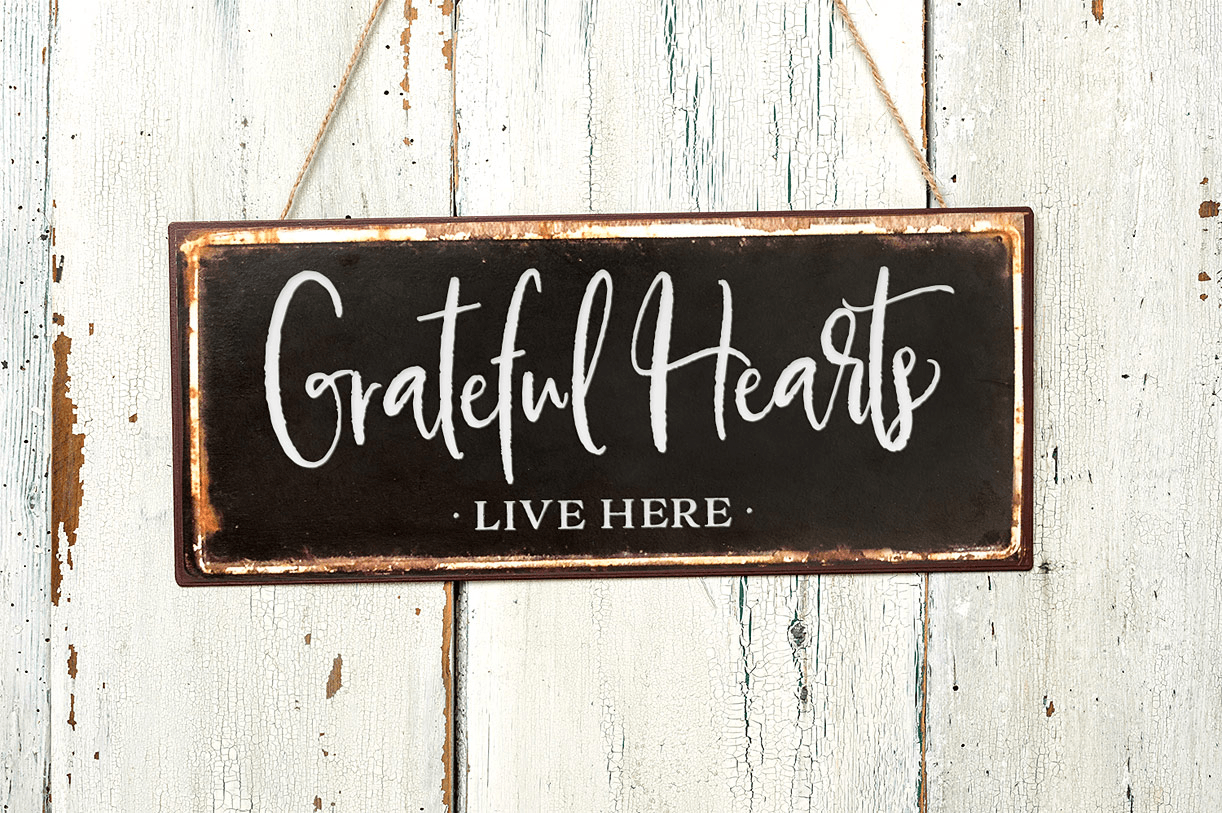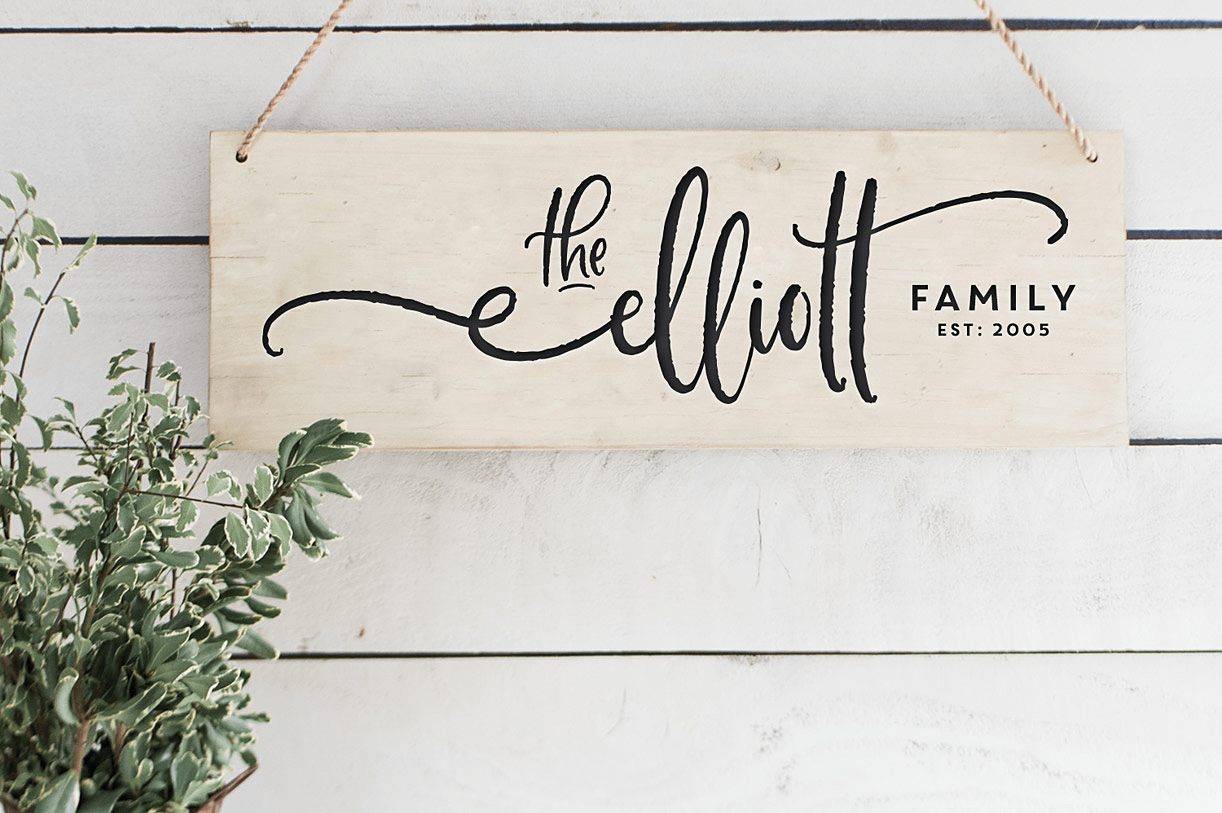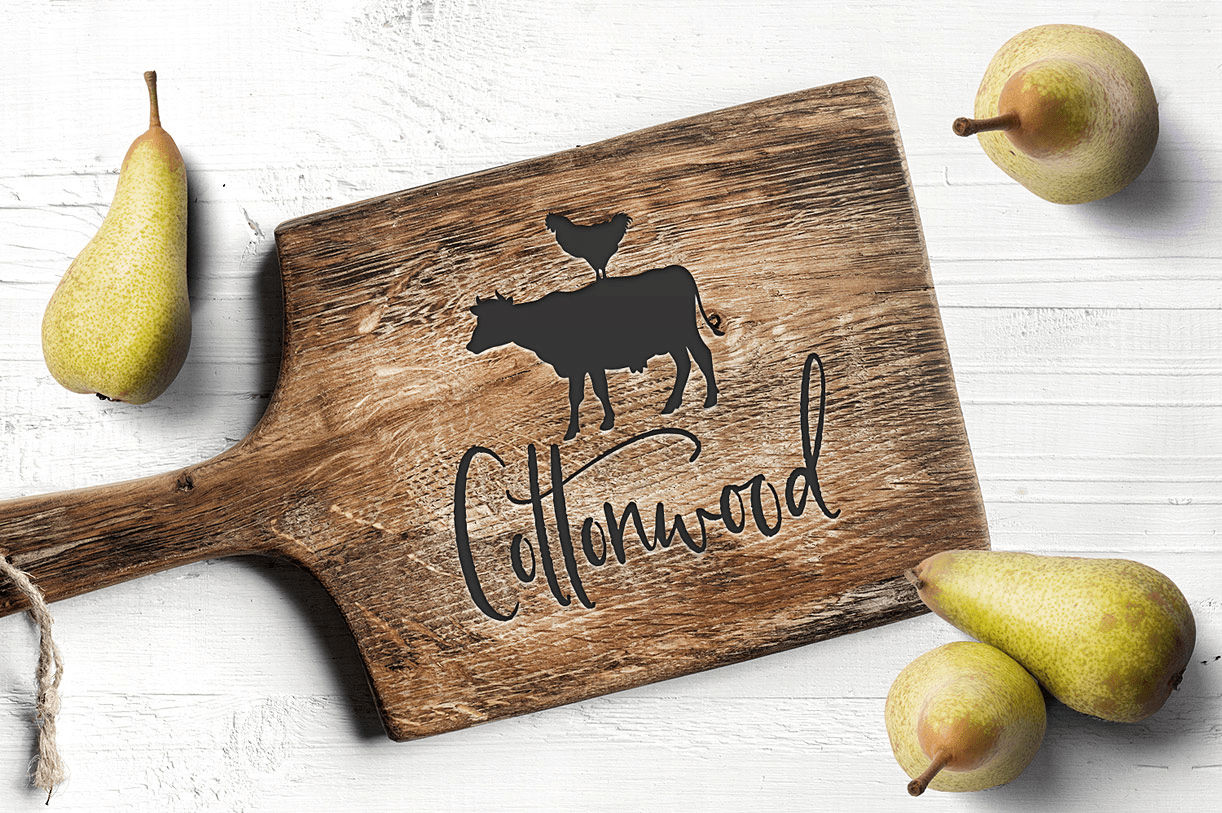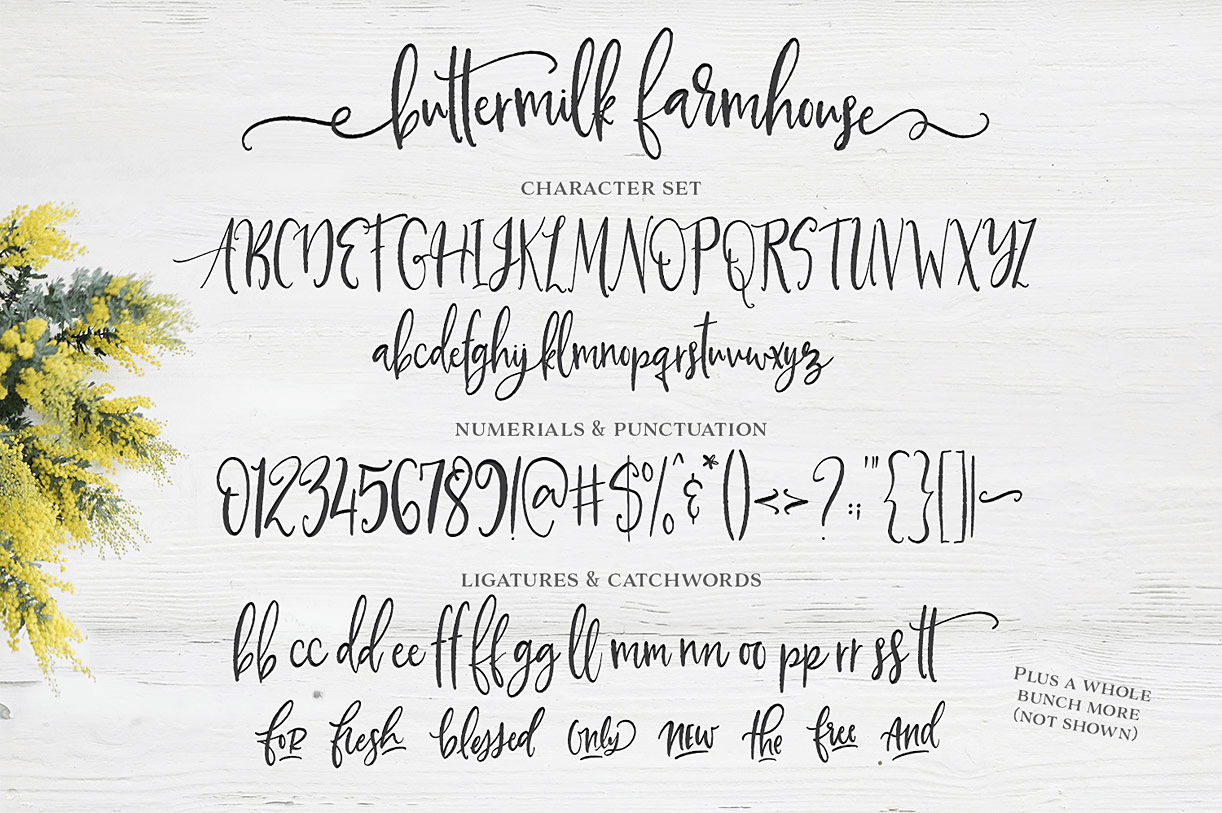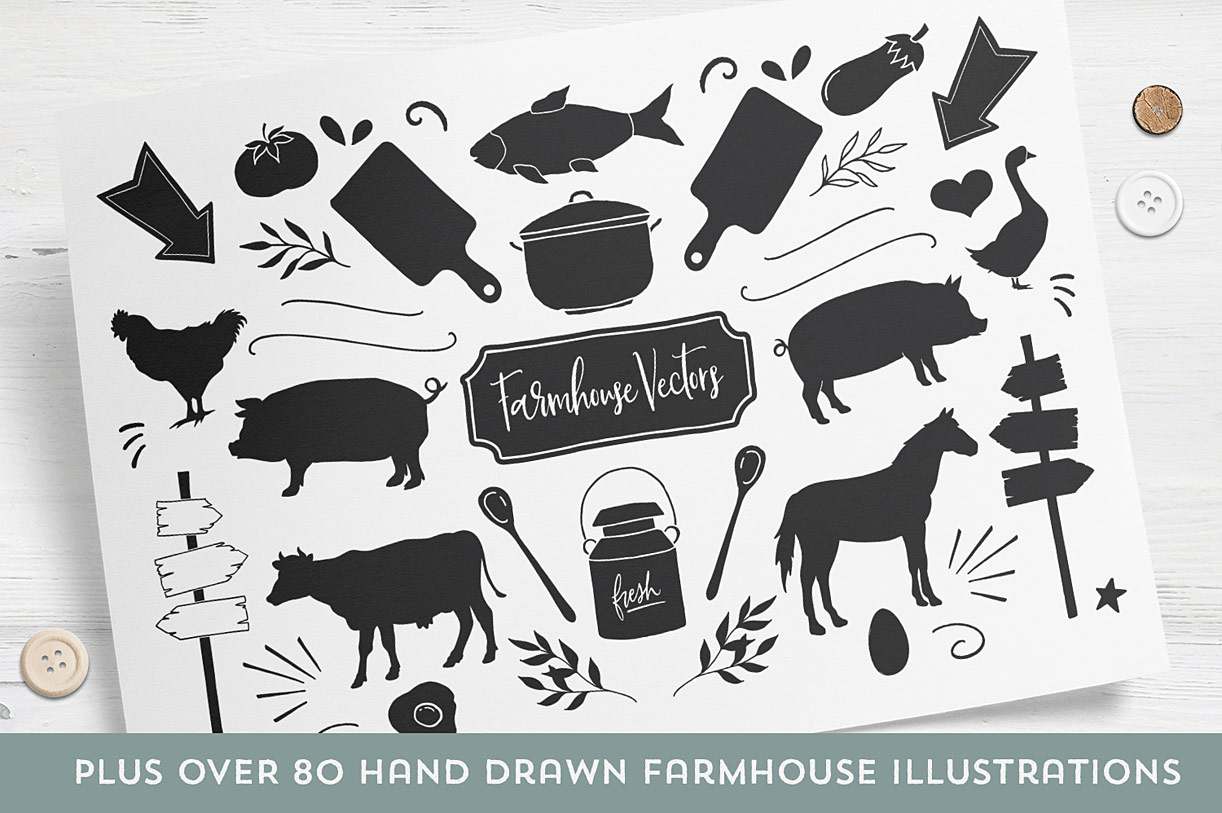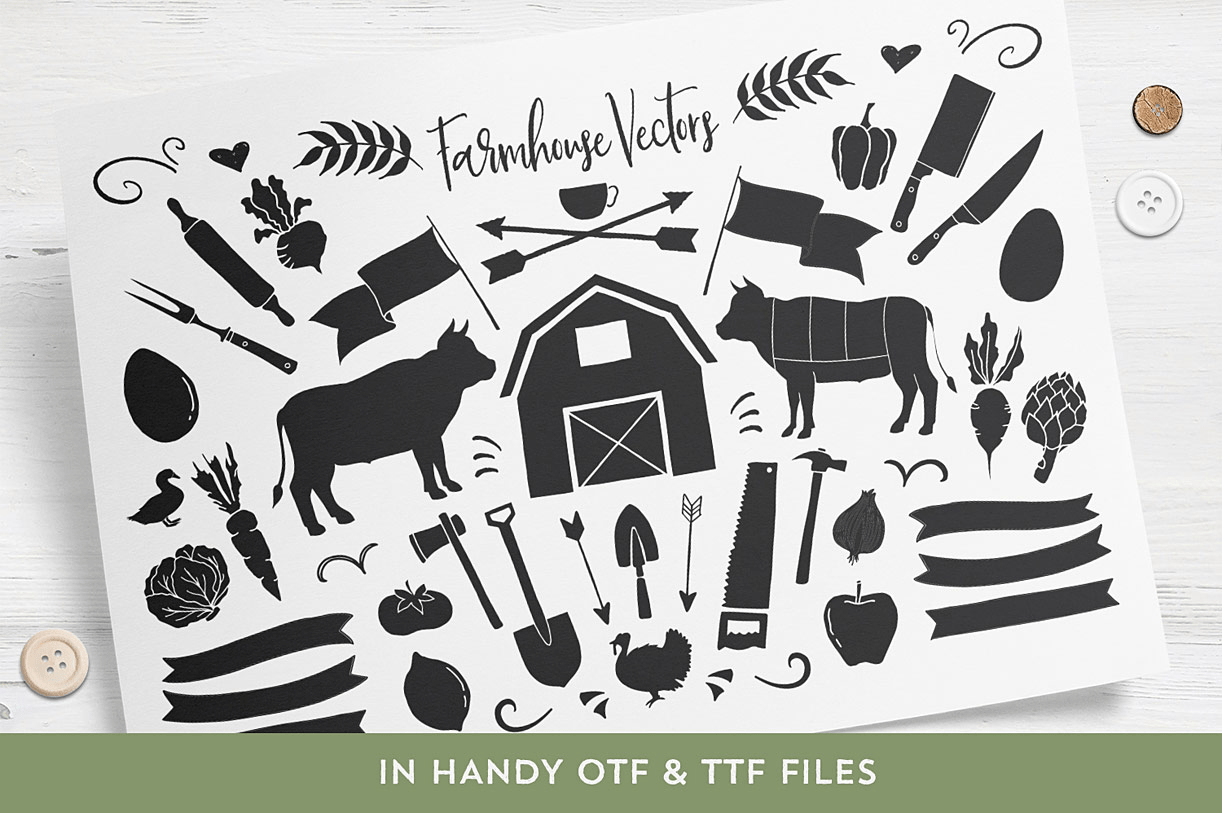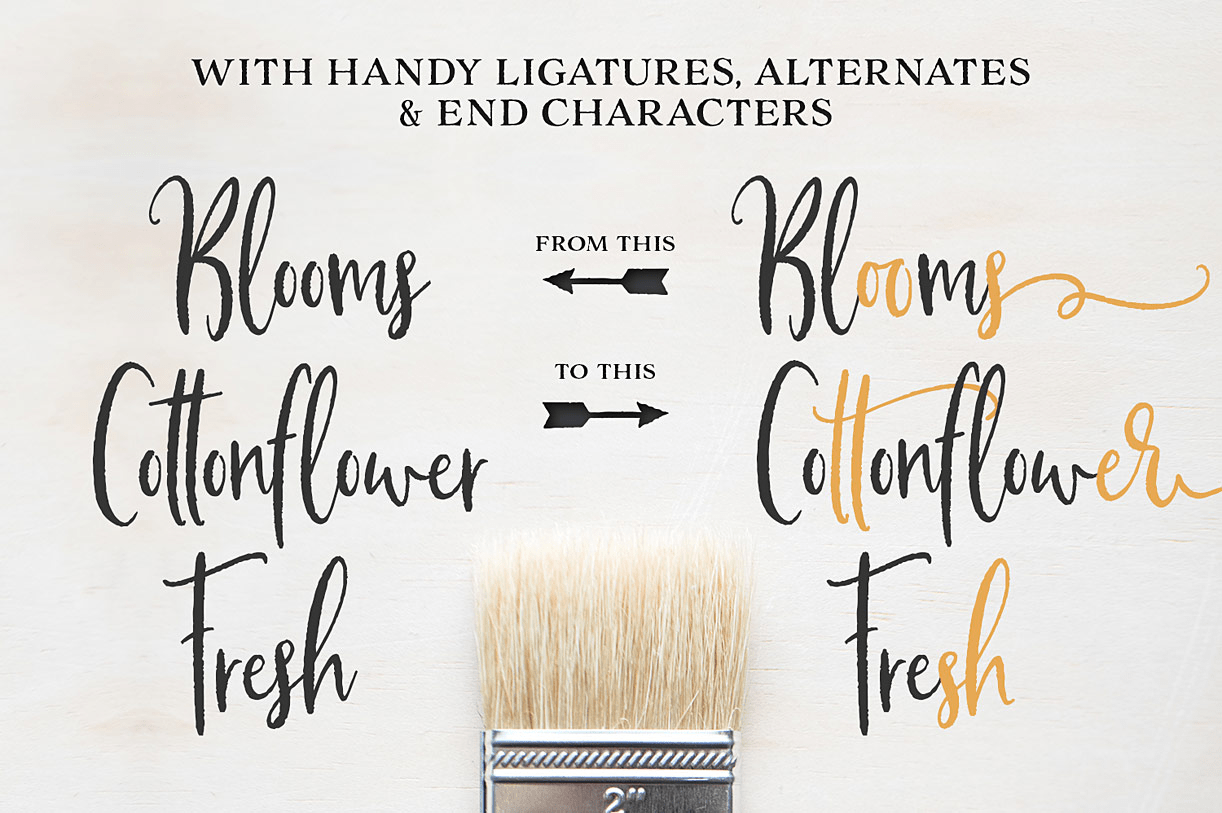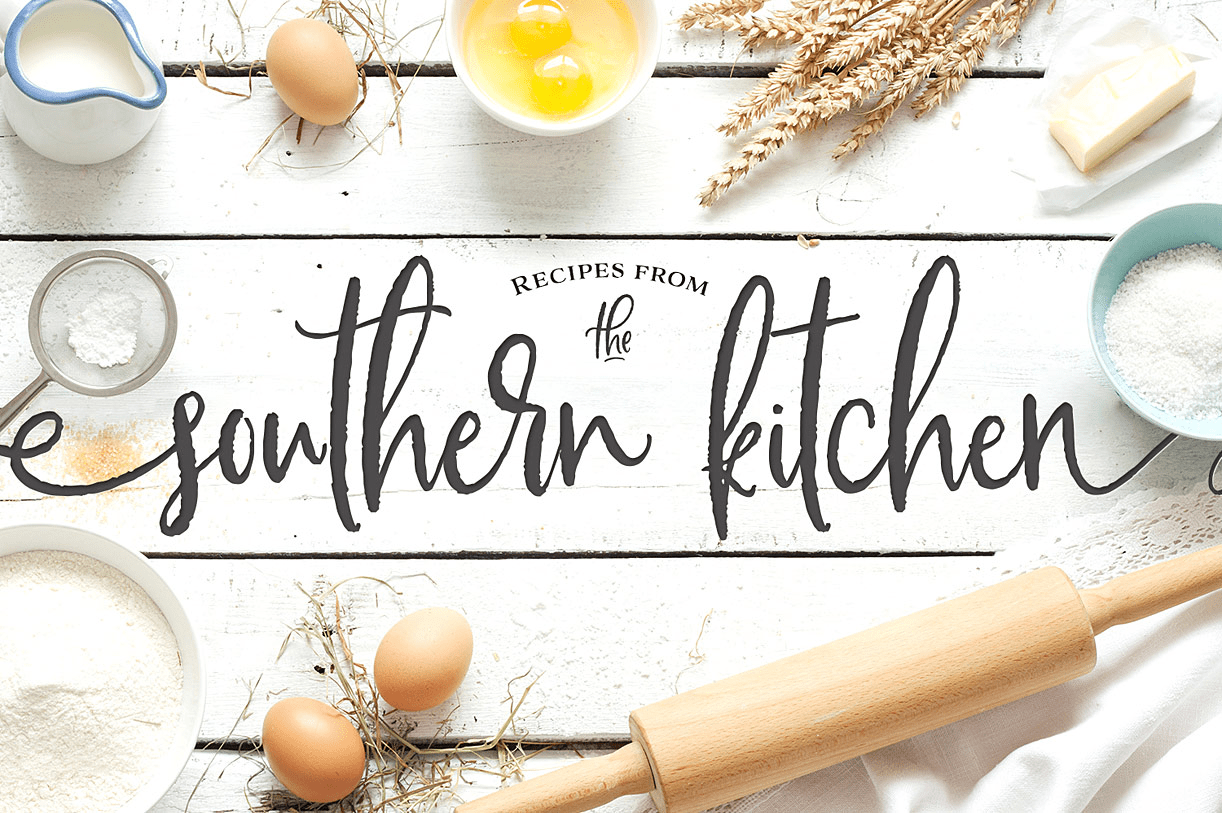
Buttermilk Farmhouse
If you're anything like me, you're absolutely in love with all things farmhouse! That gorgeous, rustic style is just about everywhere lately, and I just can't get enough! So, in honor of this elegant trend, I've created, Buttermilk Farmhouse - a rustic, delicate script that can be used on everything from signage to branding to editorials. Don't be shy, give this baby a test drive and see what you can do!